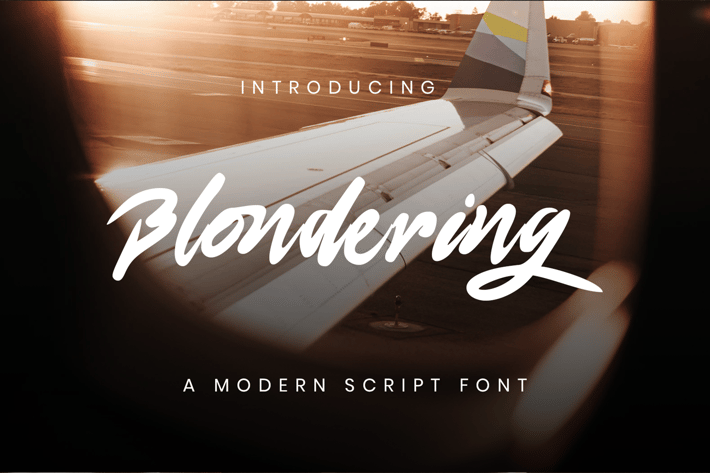
Blonderng Modern Script Font
Blondering Modern Script Font, is our new font and suitable for mockup or any work.
Great for
Sticker, Invitation Card, Brochure, etc.